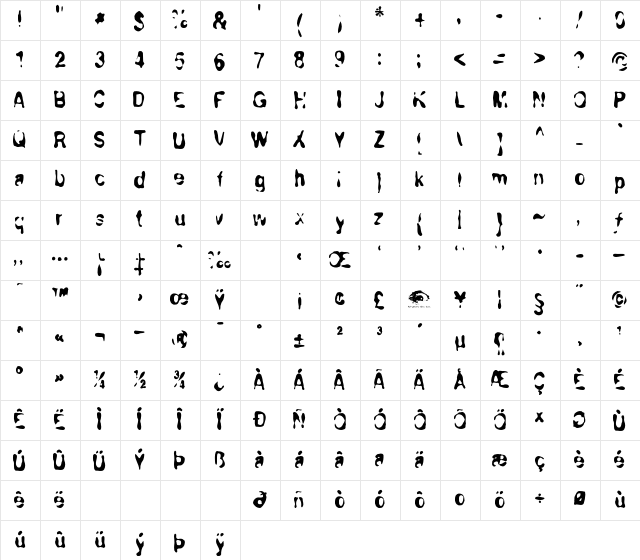
Complete AlienArgonautAOE Regular glyph index. Displaying only characters natively supported by AlienArgonautAOE Regular font.
AlienArgonautAOE is a composed and adaptable typeface that performs quietly and consistently across a wide range of design contexts.